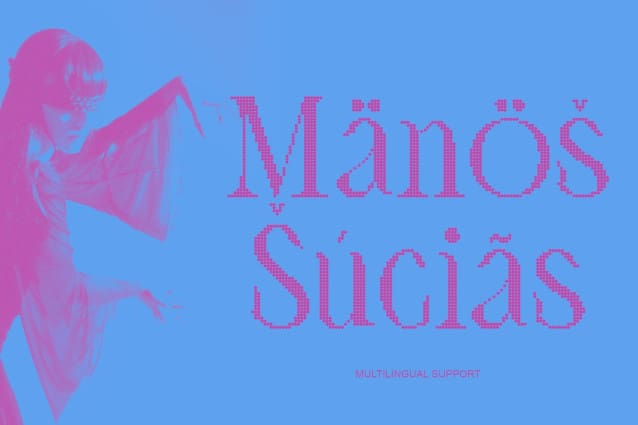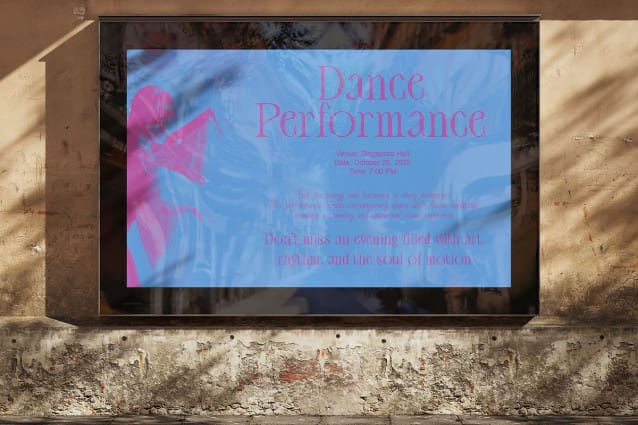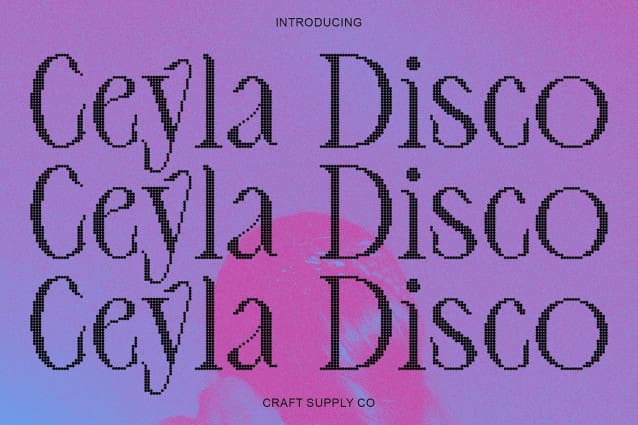
Ceyla Disco Font
Ceyla Disco Font – Modern Art Nouveau with a Glamorous Glow,Modern Sans Serif with Art Nouveau Flair This is a modern sans serif font that beautifully blends the organic elegance of Art Nouveau with clean, contemporary lines. Its graceful curves and balanced structure create a trendy and captivating aesthetic perfect for designs that seek a fusion of timeless beauty and modern sophistication. Each letter flows with subtle charm, making it ideal for creative work that values both style and precision.
Disco Effect for Sparkling Expression With a radiant disco effect, this font brings visual sparkle and movement to every design. The shimmering highlights and dynamic rhythm give each character a glamorous, lively presence that instantly draws attention. This playful glow transforms minimalist layouts into eye-catching statements full of energy.
Organic Curves with Modern Simplicity This fonts design balances the fluid, ornamental nature of Art Nouveau with the sleek minimalism of modern sans serif forms. The result is a typeface that feels both artistic and contemporary ideal for designers who want to communicate creativity without sacrificing professionalism or readability.
Perfect for Stylish and Sophisticated Projects From branding and posters to editorials and fashion campaigns, this font shines in any creative context that demands elegance with an energetic twist. Its blend of organic artistry, modern structure, and disco-inspired flair ensures your work feels stylish, and full of visual character ready to dazzle in every setting.